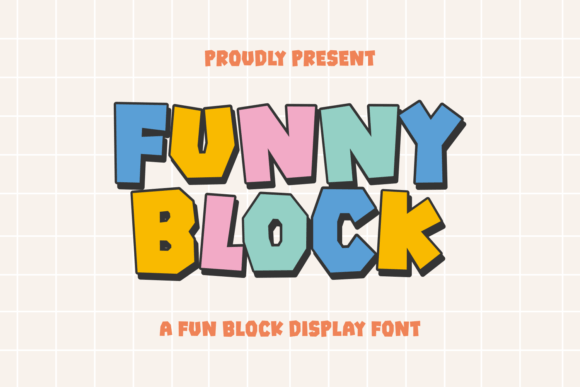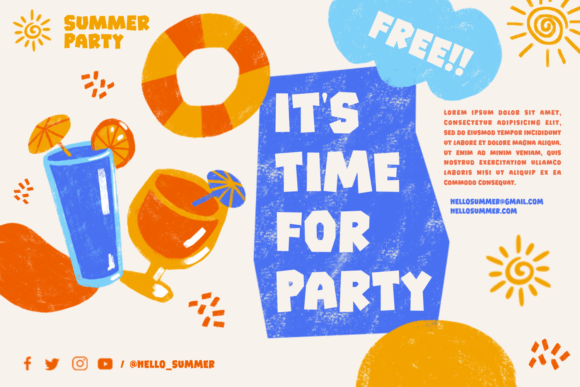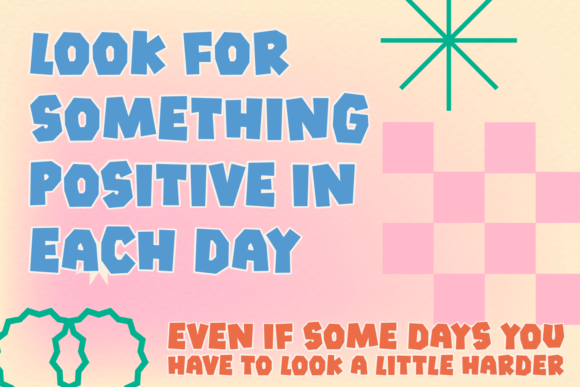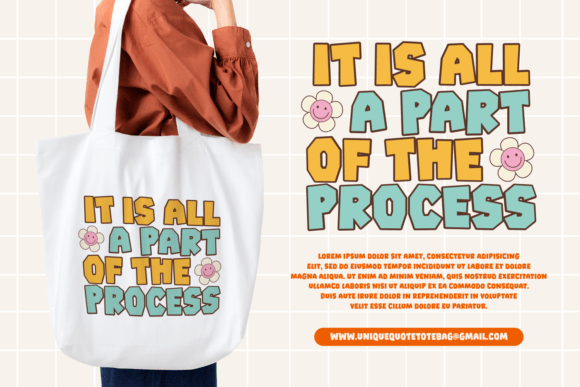
Funny Block Font
About the Funny Block Font
Make a bold statement with Funny Block Font, a powerful and memorable font. Funny Block is a blocky and playful display font that is perfect for creating bold and fun designs. Its thick and sturdy letters feature playful and quirky details that give it a unique and charming personality. This font is perfect for headlines, posters, and other playful projects. The font’s playful and bold personality is sure to make an impact.
Its bold, chunky forms are ideal for headlines, posters, and short impactful statements in branding materials like logos or packaging. Avoid using Funny Block for body text or long passages; its playful nature and large x-height would hinder readability.
The font’s inherent friendliness pairs well with softer sans-serif fonts like Open Sans for supporting text or a more elegant serif like Merriweather for a touch of sophistication. For a more playful approach, consider pairing it with a handwritten script font, but use it sparingly to avoid visual clutter.
Funny Block projects a friendly, approachable, and energetic personality, making it suitable for brands targeting a younger demographic or those wishing to convey a sense of fun and approachability. It’s less appropriate for brands needing a more refined or serious image.
Funny Block Font Usage Examples
Funny Block Font Example